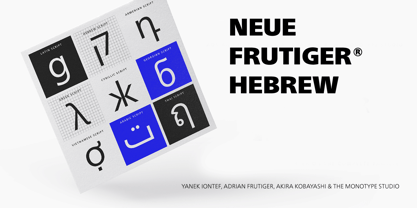
Neue Frutiger Hebrew
Neue Frutiger® Hebrew
by Linotype
Neue Frutiger Hebrew Font Family was designed by Adrian Frutiger, Akira Kobayashi, Yanek Iontef, Monotype Design Studio and published by Linotype. Neue Frutiger Hebrew contains 20 styles family package options.
Neue Frutiger Hebrew was created by Yanek Iontef and a team of designers and font engineers from the Monotype Studio, under the direction of Monotype type director Akira Kobayashi. The family is available in 10 weights from Ultra Light to Extra Black, with matching italics. Neue Frutiger Hebrew embodies the same warmth and clarity as Adrian Frutiger’s original design, but allows brands to maintain their visual identity, and communicate with a consistent tone of voice, regardless of the language. It is part of the
Neue Frutiger World
collection, offering linguistic versatility across environments – suited to branding and corporate identity, advertising, signage, wayfinding, print, and digital environments.
Designers: Adrian Frutiger, Akira Kobayashi, Yanek Iontef, Monotype Design Studio
Publisher: Linotype
Foundry: Linotype